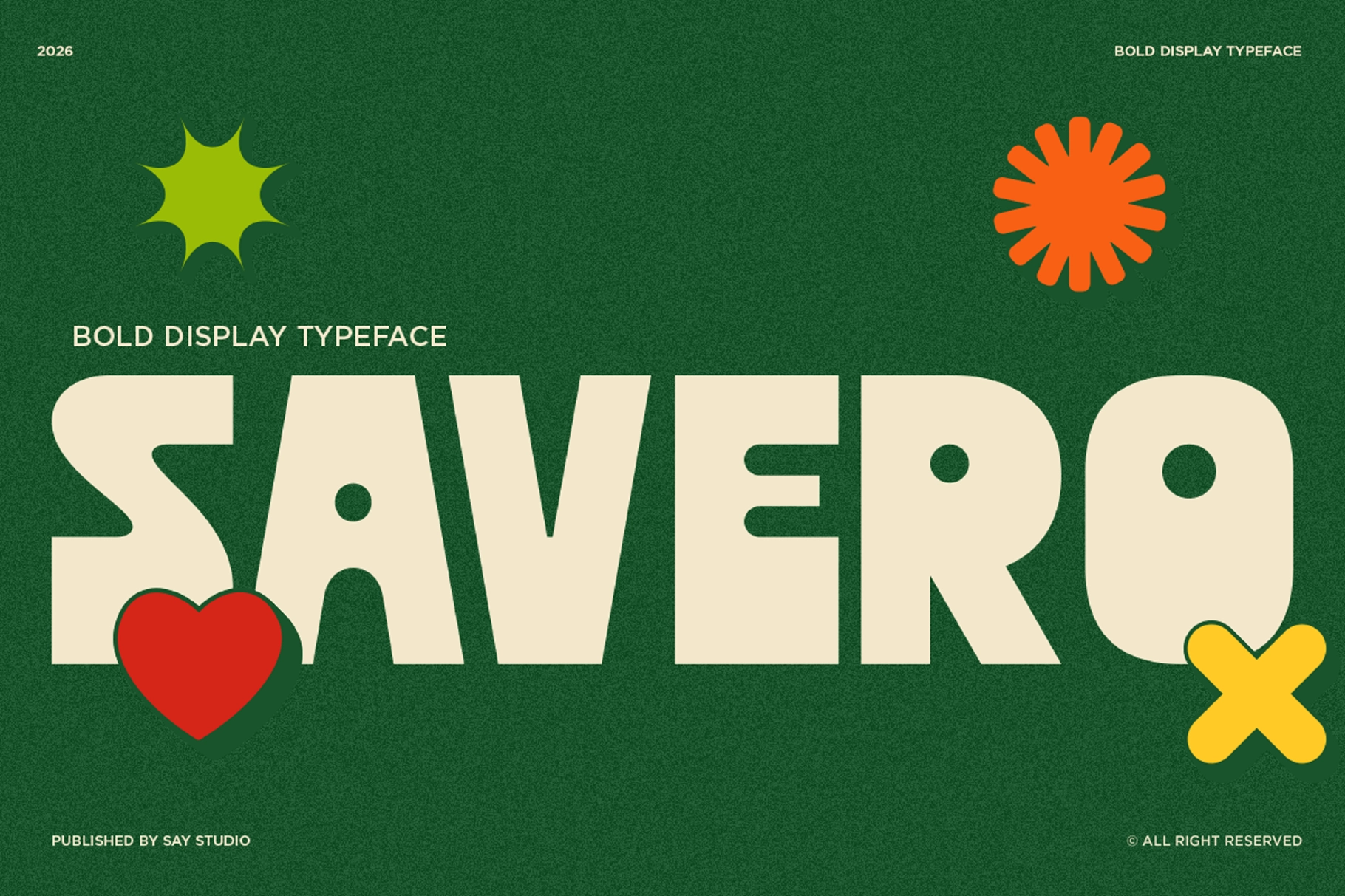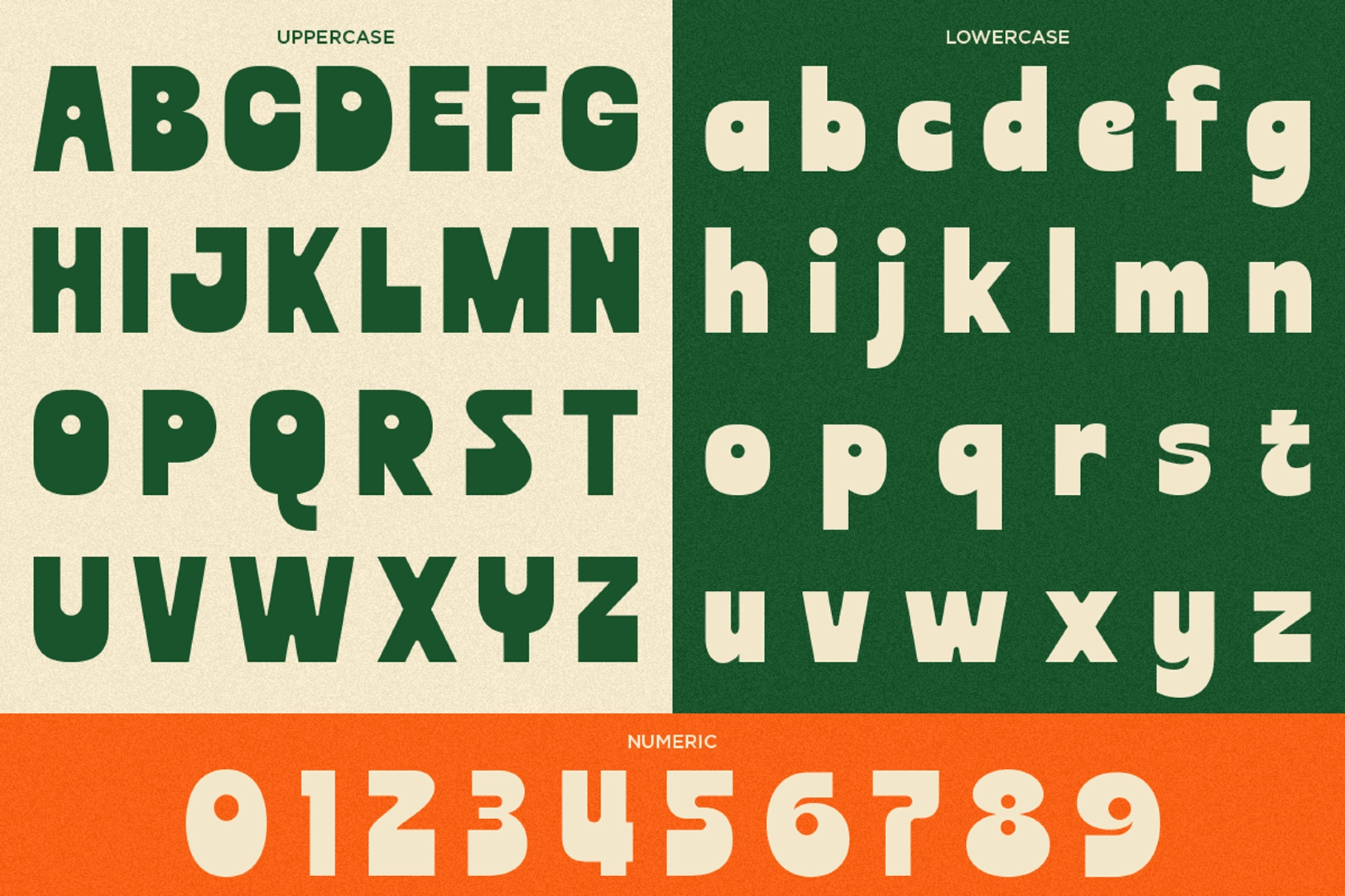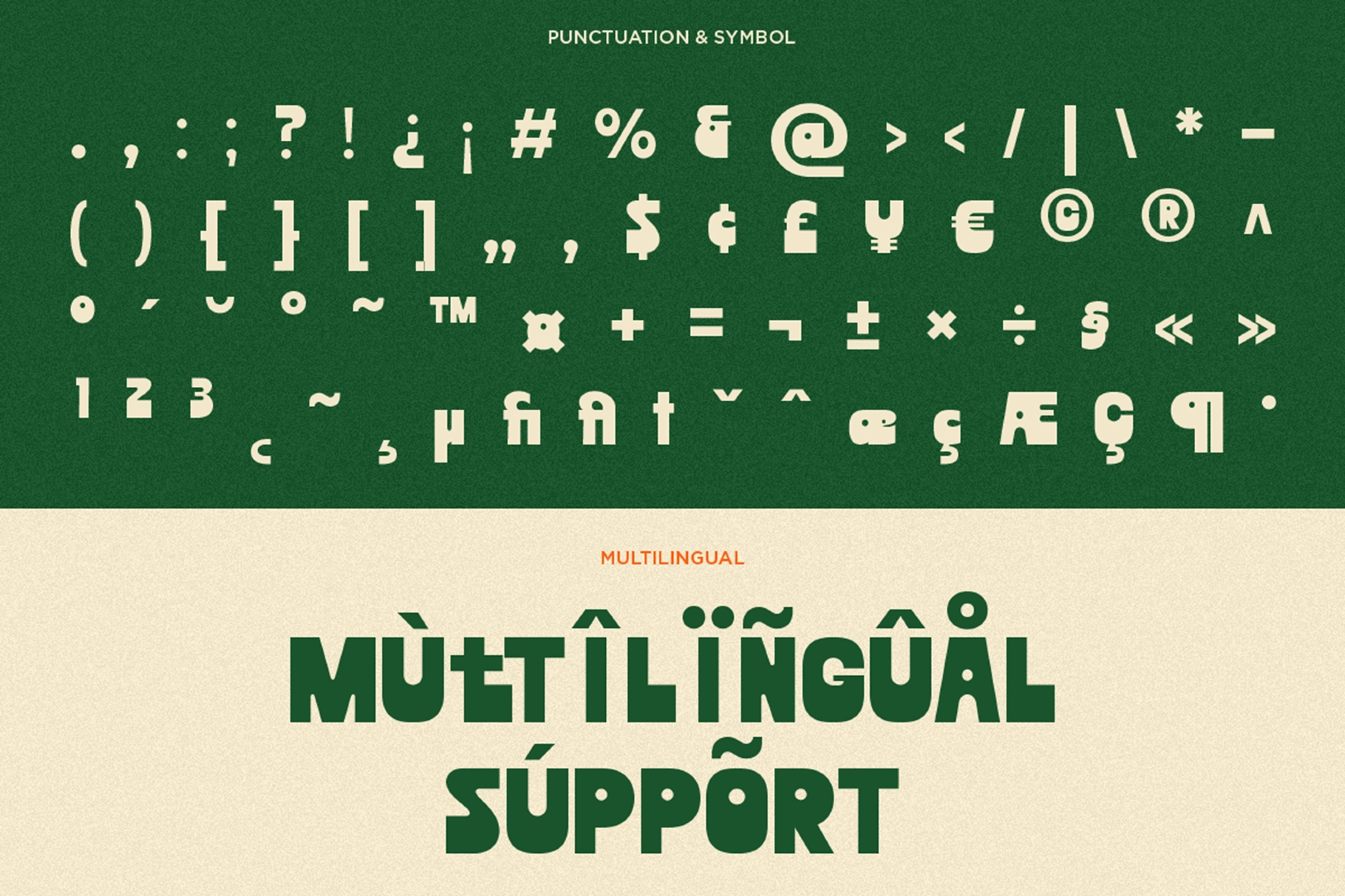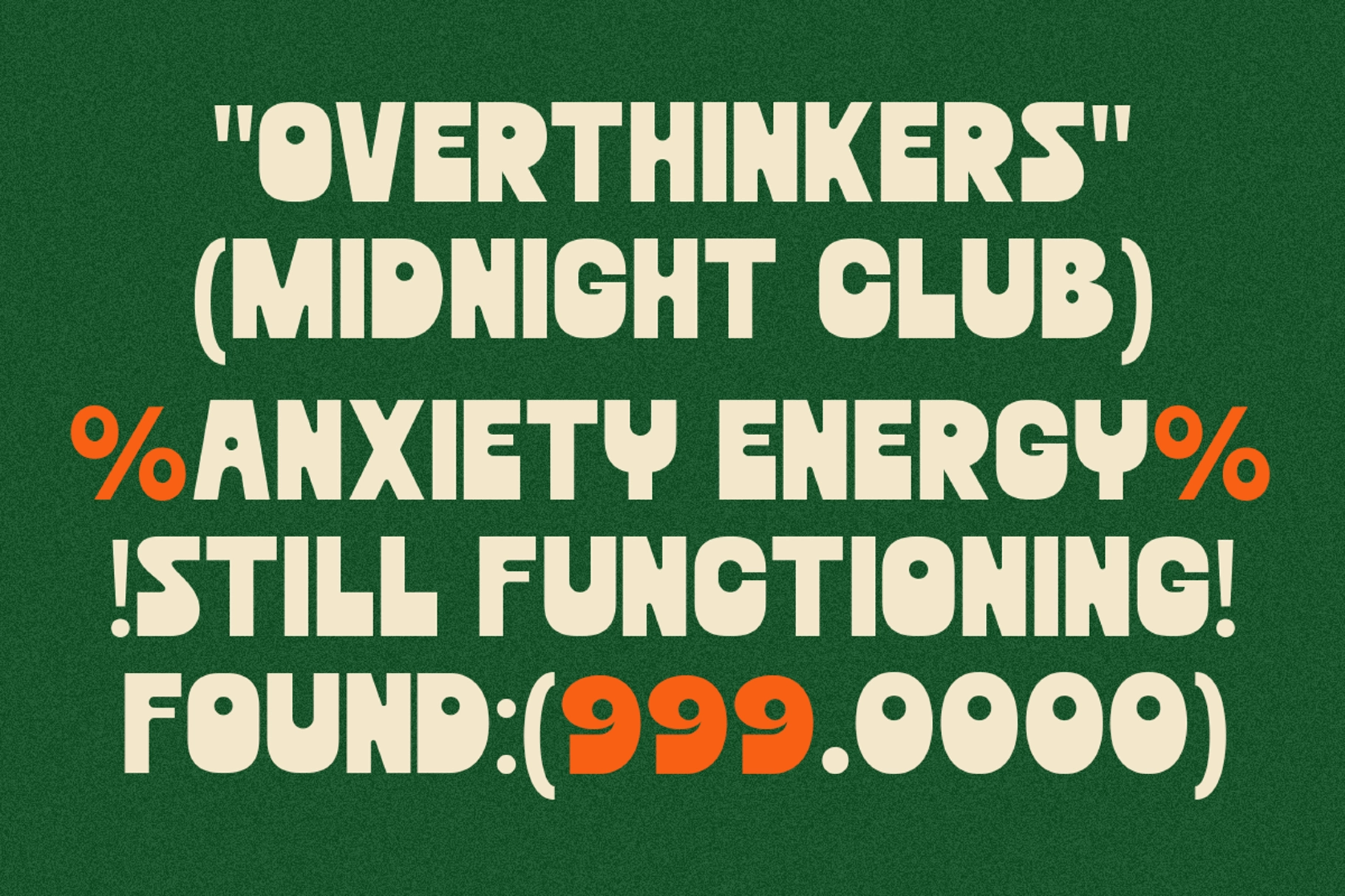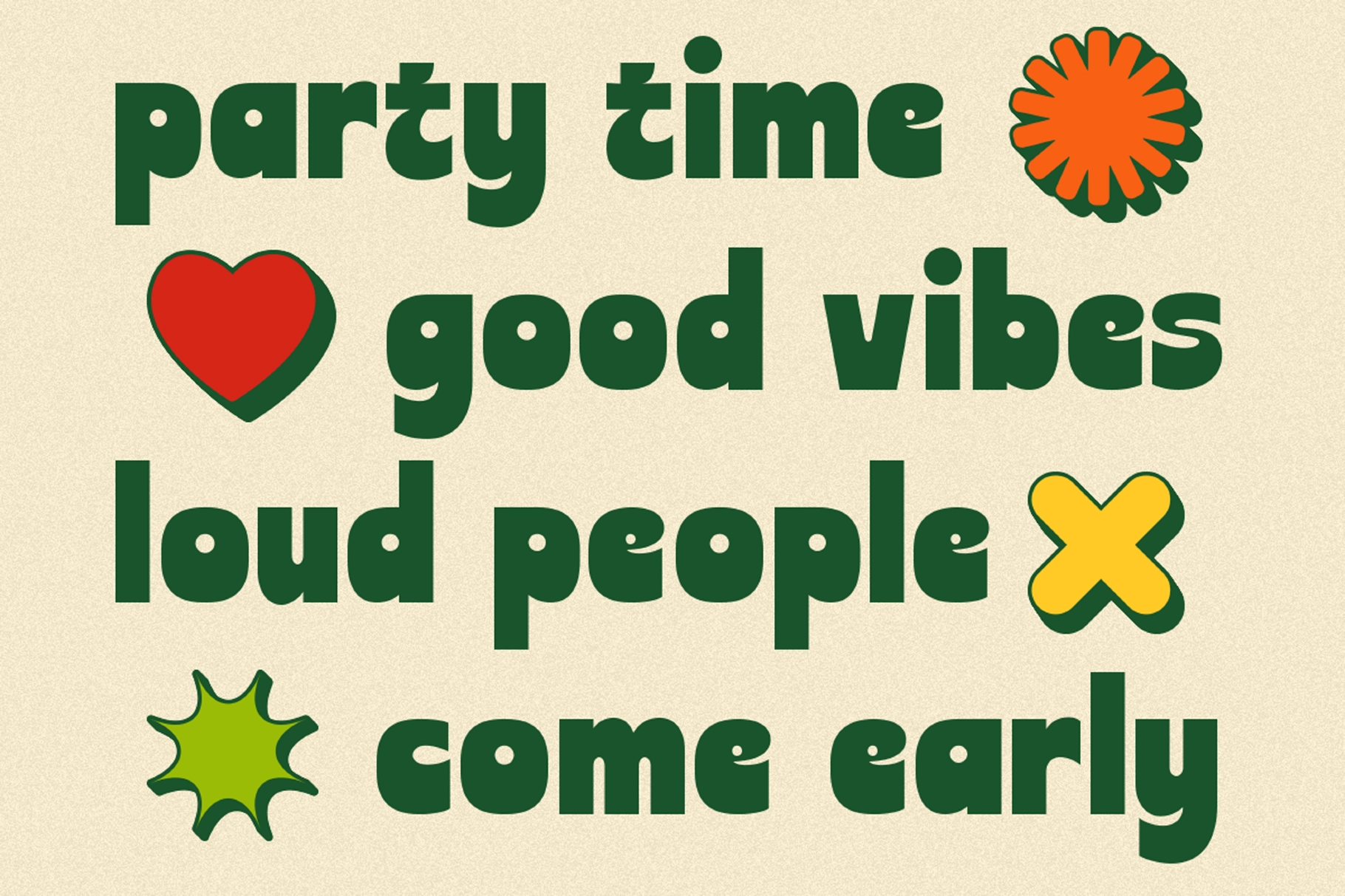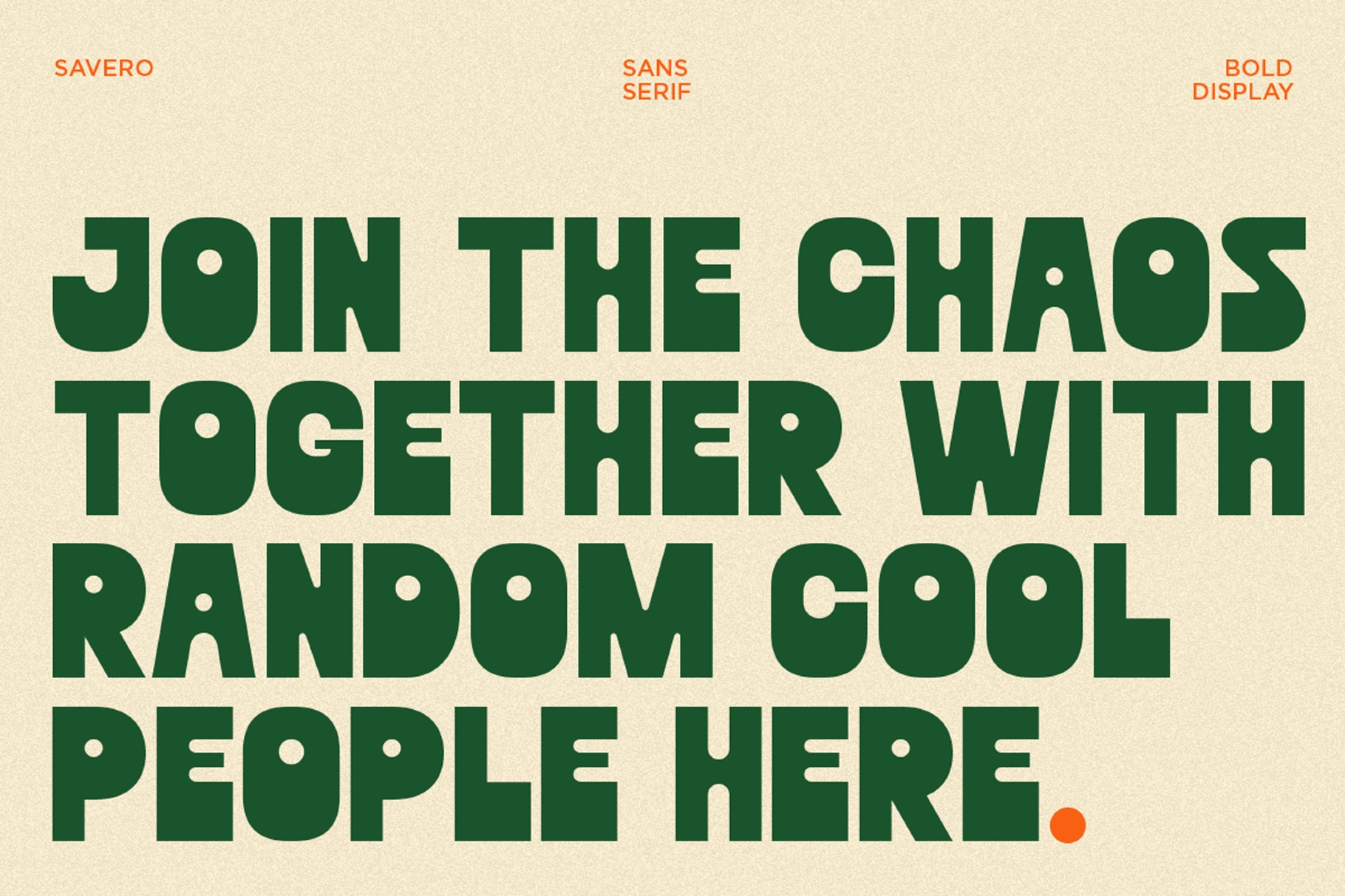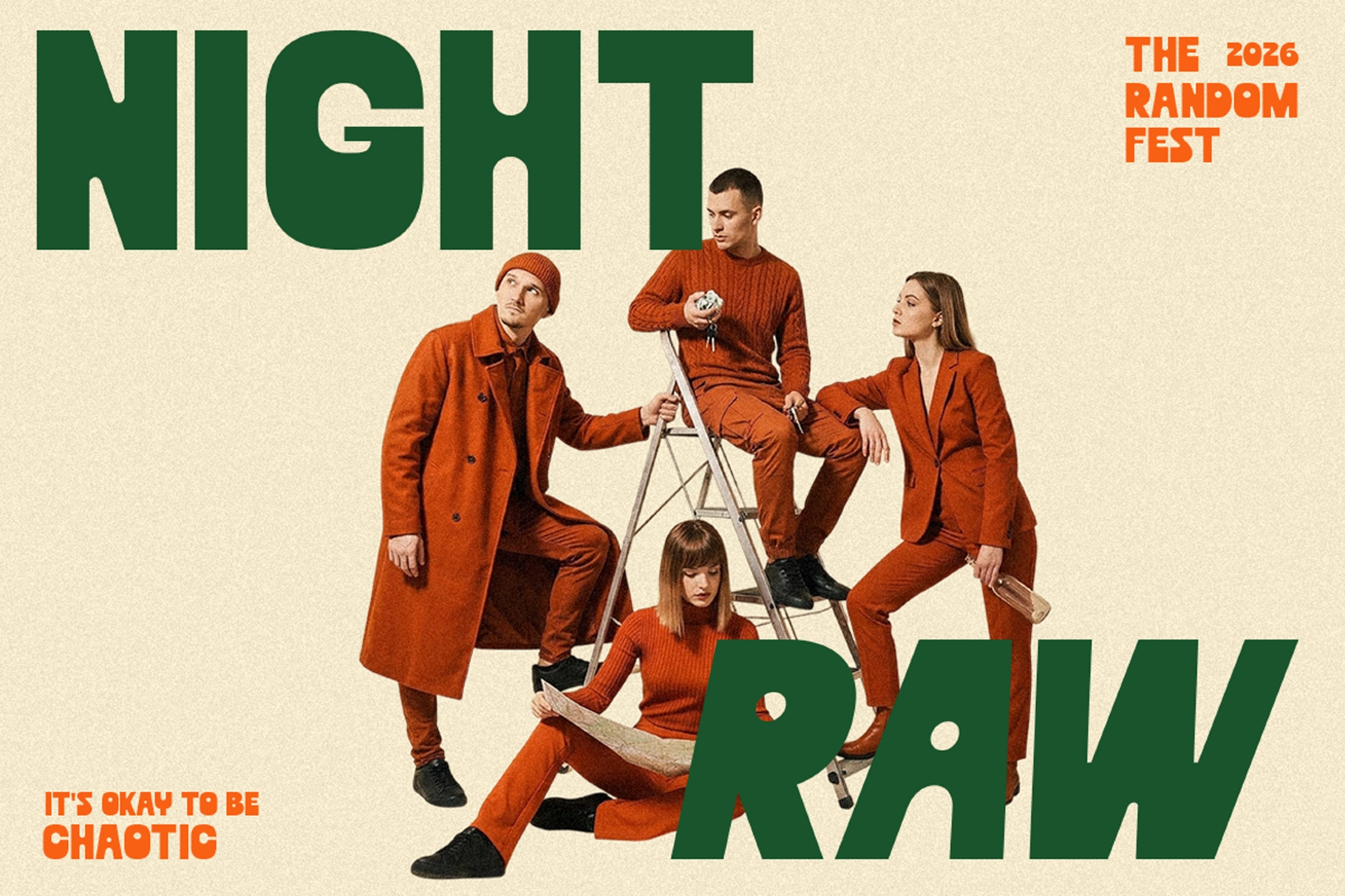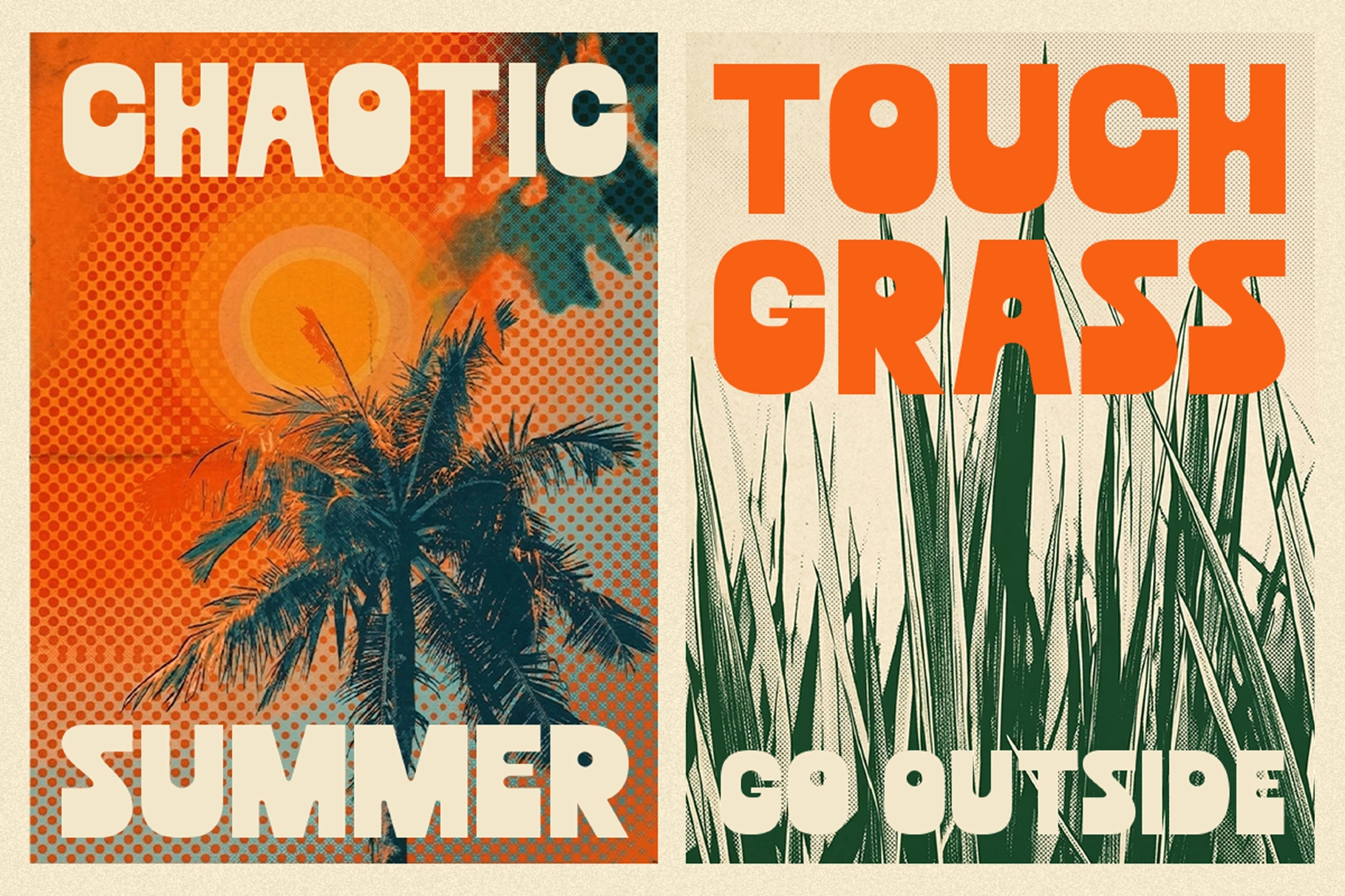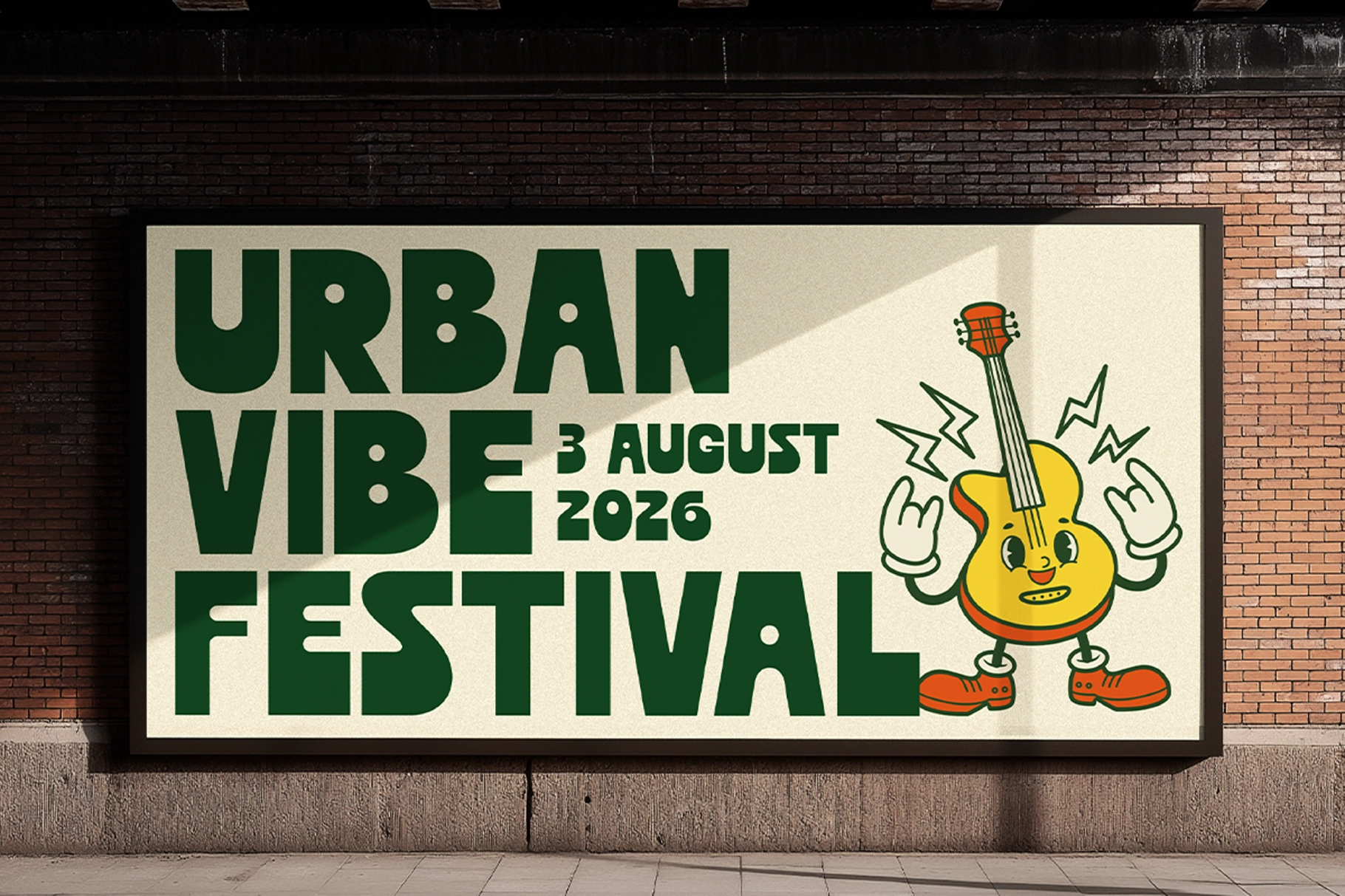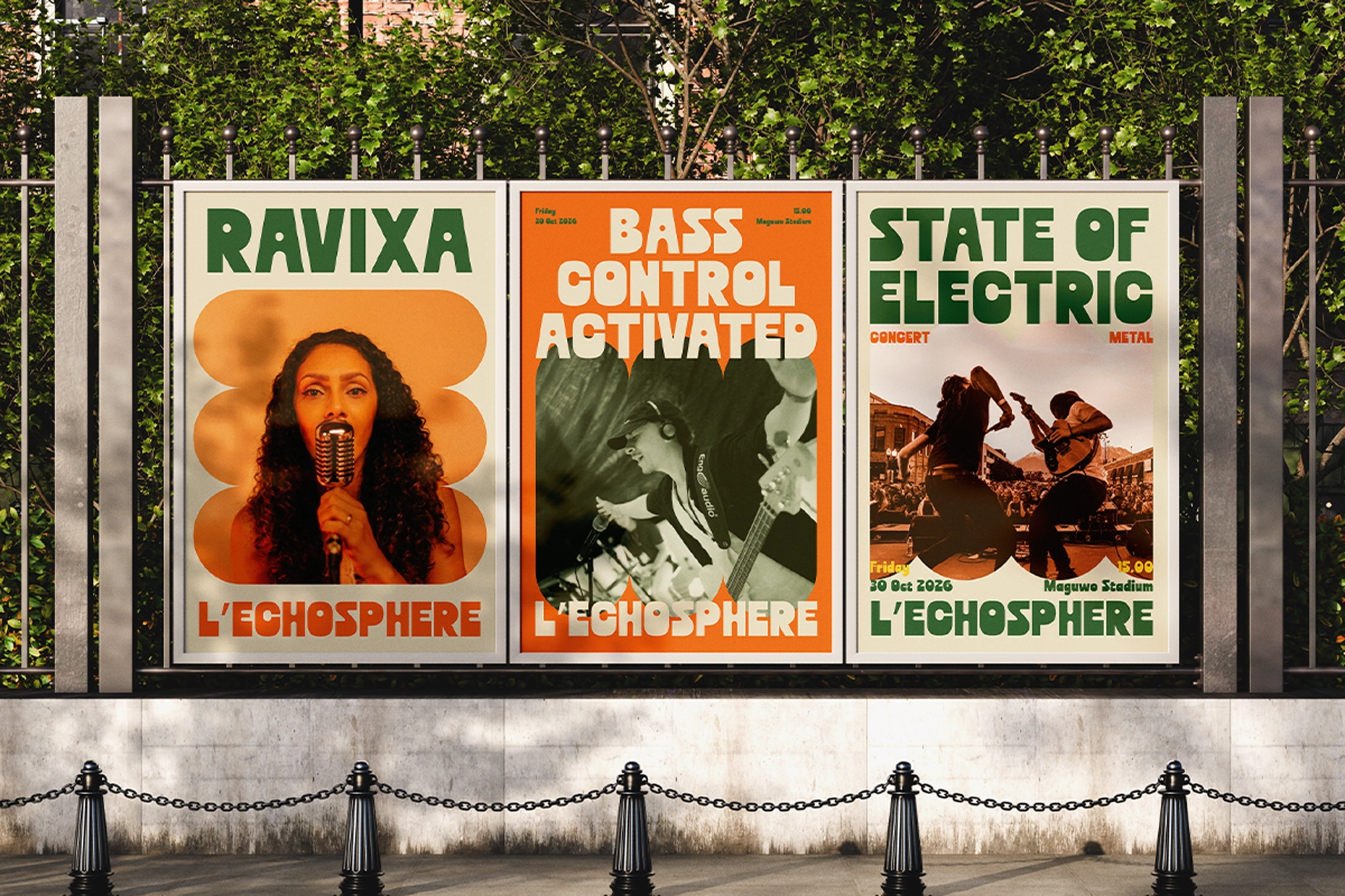
Savero - Playful Geometric Sans Font
Savero, Playful Geometric Sans Font has the punchy charm of 1970s poster graphics and children’s publishing, pairing chunky geometric forms with rounded counters that give it a bright, pop-inflected presence. It suits packaging, branding, posters, logo work, social media visuals, and headline layouts, especially for food labels, playful campaigns, lifestyle products, and youth-focused identities that need a strong, friendly voice.
- Regular & Italic styles
- Symbols set
- Bold geometric construction